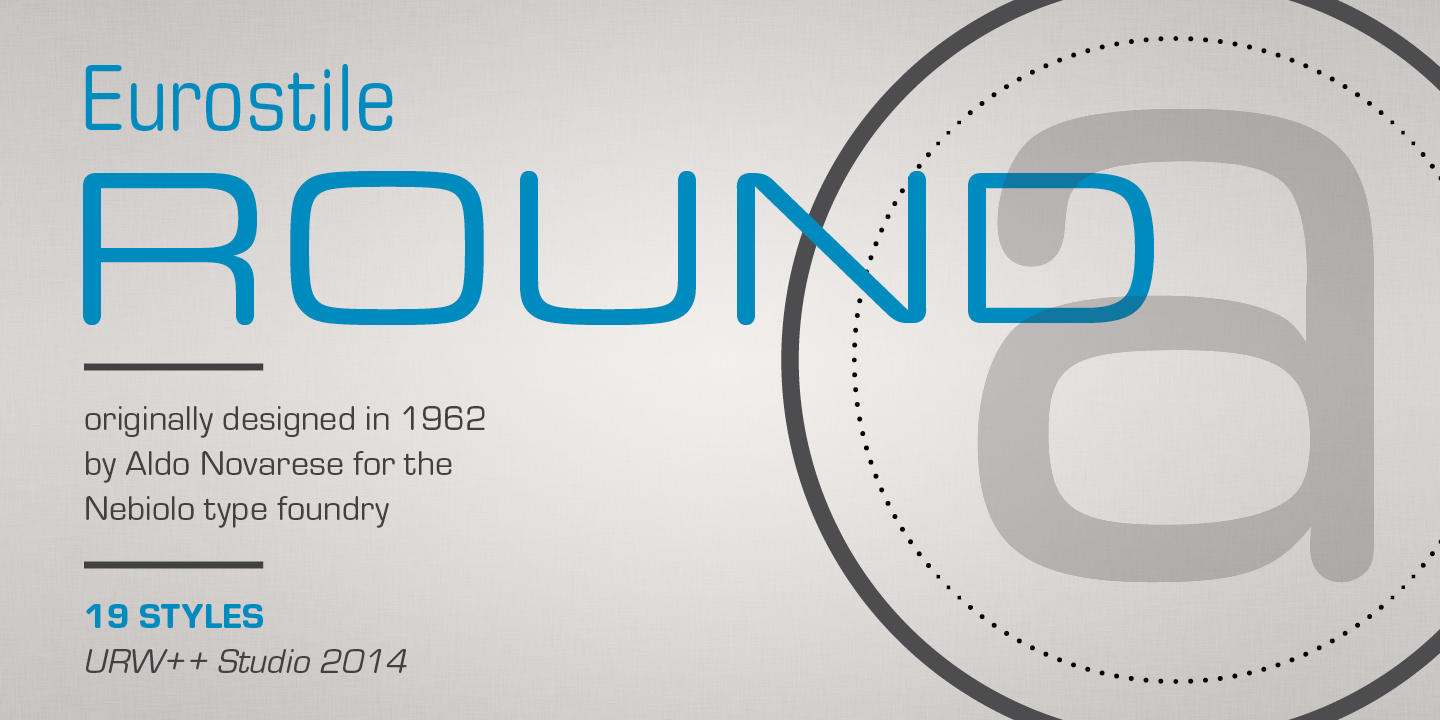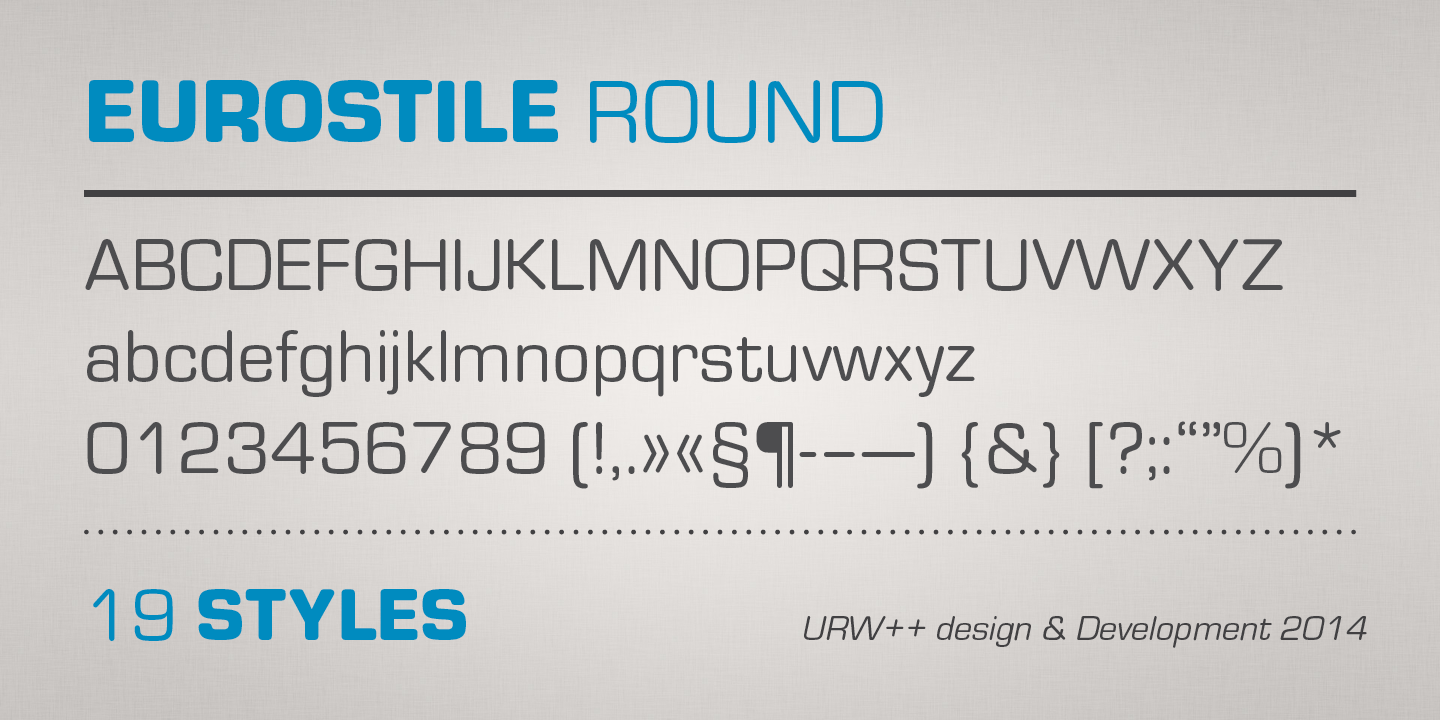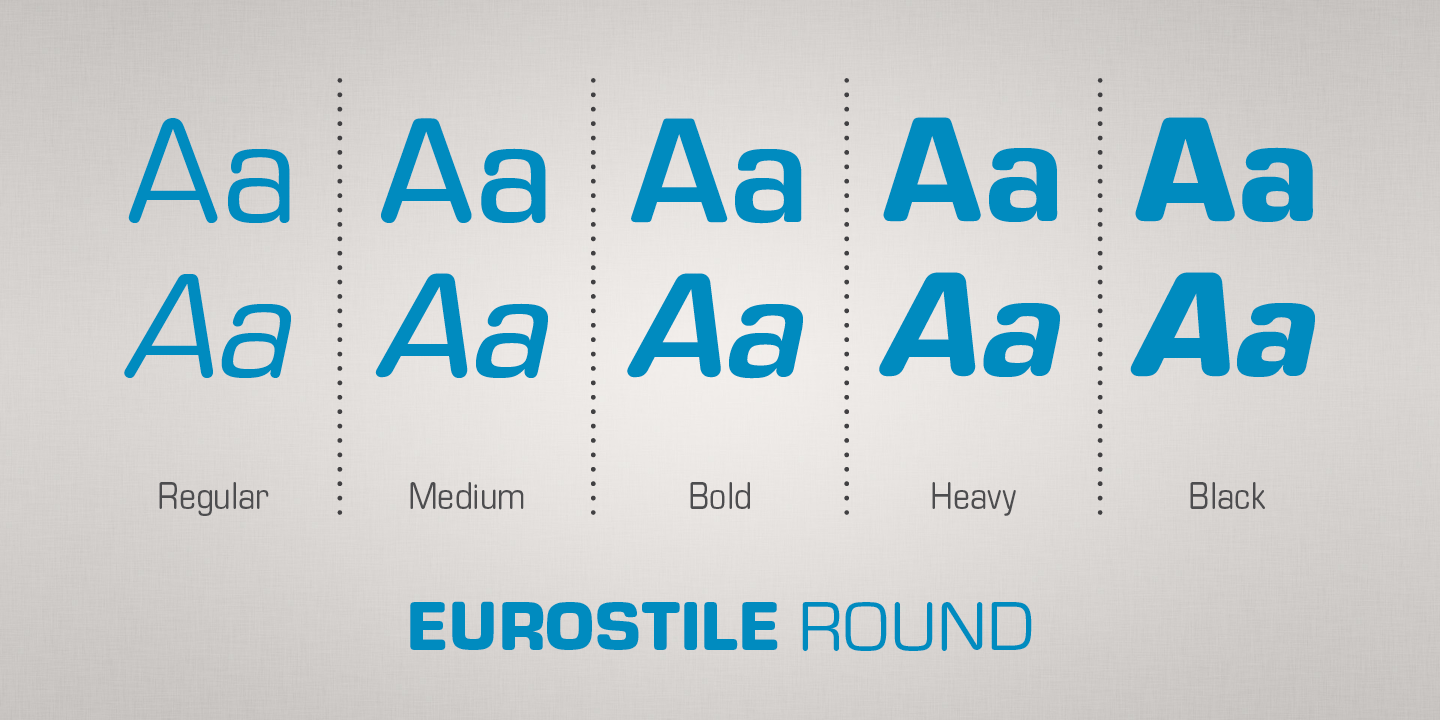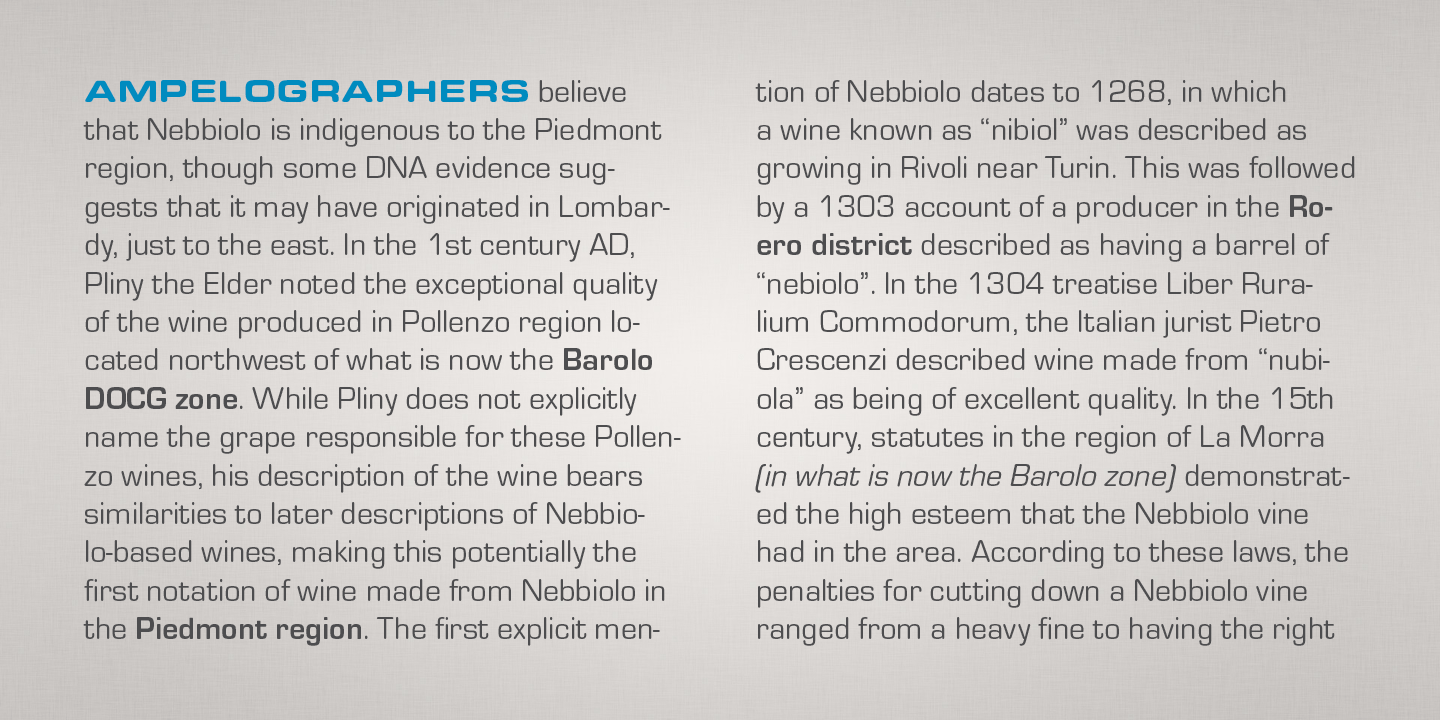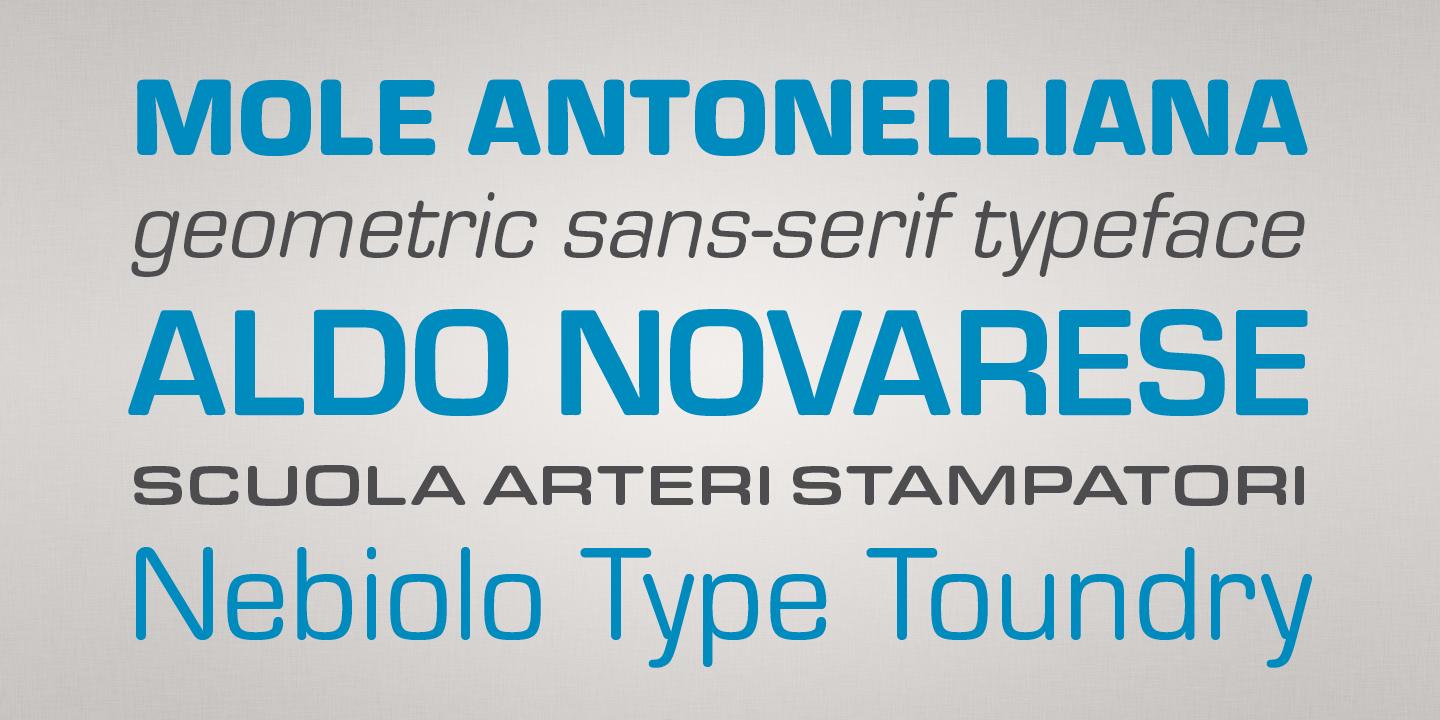
Eurostile Round
Eurostile, created in 1962 by Aldo Novarese for the Nebbiolo type foundry, is one of the most popular sans serif fonts of all, and has been for about 50 years.
Originally designed as a screen font it was very popular from the beginning, even though it is only a slightly modified version of the 10-year-older Microgramma, but completed with lower case characters.
On public demand, URW++ has expanded its range of Eurostile with Eurostile Round with 19 additional styles. Quite like Futura Round by URW++, Eurostile Round works perfectly well as webfont.